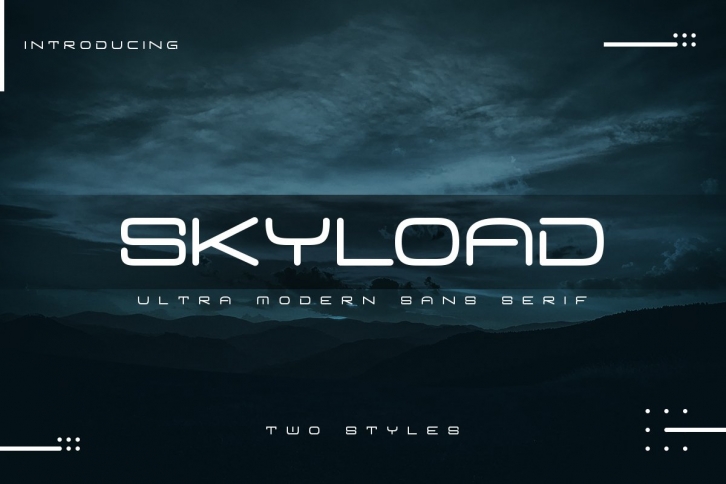
Skyload is a trendy and unique font with an authentic style. It was designed by MuntabArt and it's a great choice for creative people who need such a font. It was released on March 13, 2020 and the file size is 17.19 MB. Skyload will add an organic vibe to any design idea!